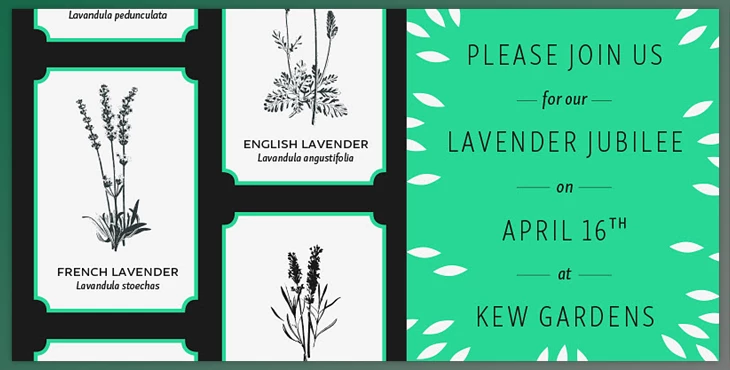
Adobe Fonts - Skolar Sans - An Extensive Typeface:
Skolar Sans is a humanist sans-serif font that works perfectly with the already-existing Skolar serifs. The family has a total of 72 fonts, from thin to extra bold. Such a range means that the font can be used appropriately for many different occasions; thus, the need for all three sizes, in addition to the fact that they would all match for editorial or digital needs.
- 72 fonts from thin to extra bold
- Four widths for diverse projects
- Uses match each other without size conflict
- Skolar Sans will perfectly match.